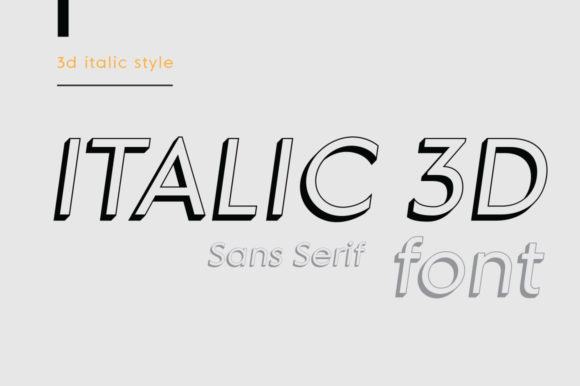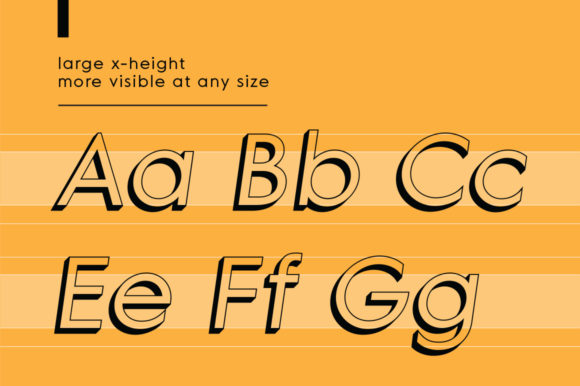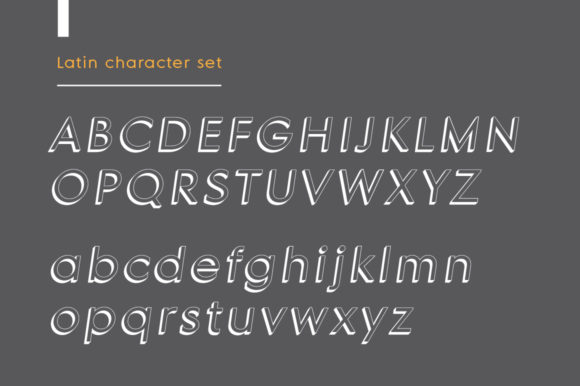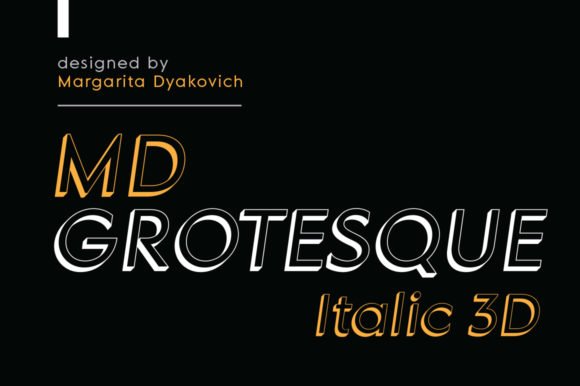
Introduction to MD Grotesque Italic 3D Font
MD Grotesque is a charming and modern sans serif font in Italic.
It will add a modern and elevated feel to any design project .
Why Choose MD Grotesque Italic 3D Font?
MD Grotesque Italic 3D Font offers exceptional quality and versatility, making it a valuable addition to your design toolkit. Whether you’re creating for personal projects or commercial use, MD Grotesque Italic 3D Font delivers professional results.